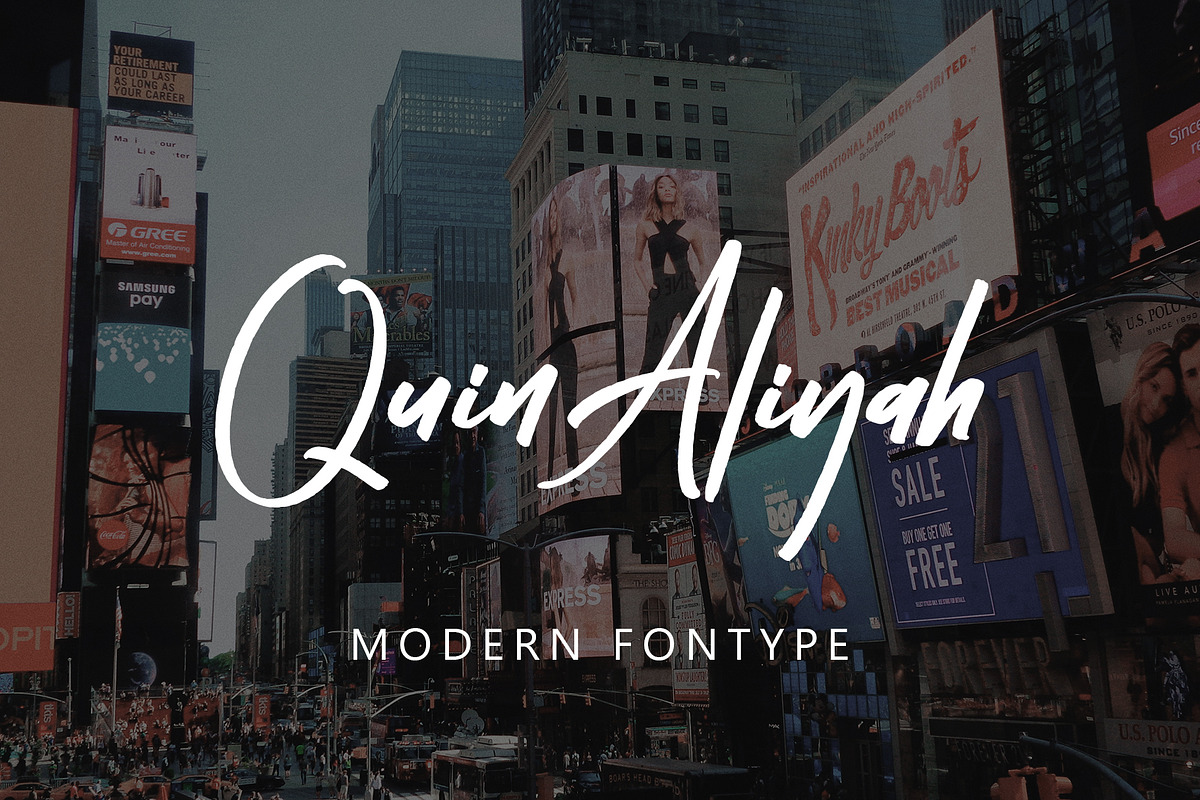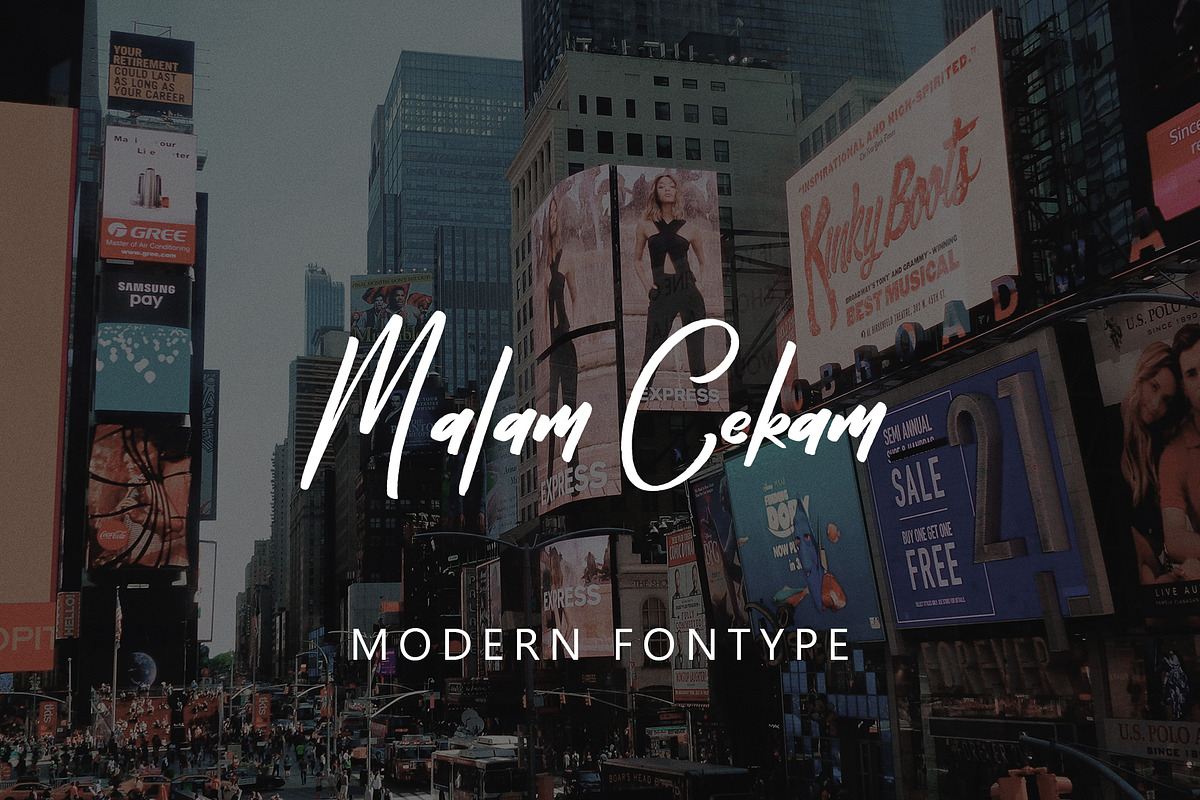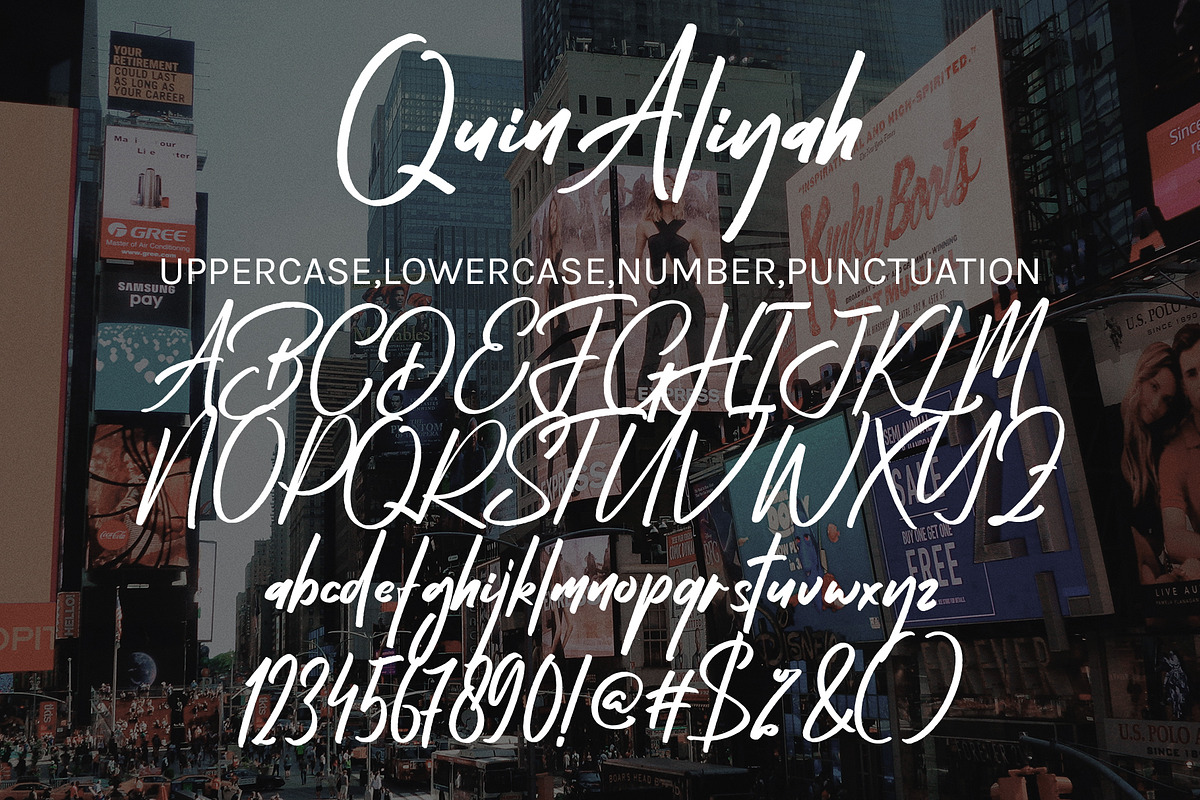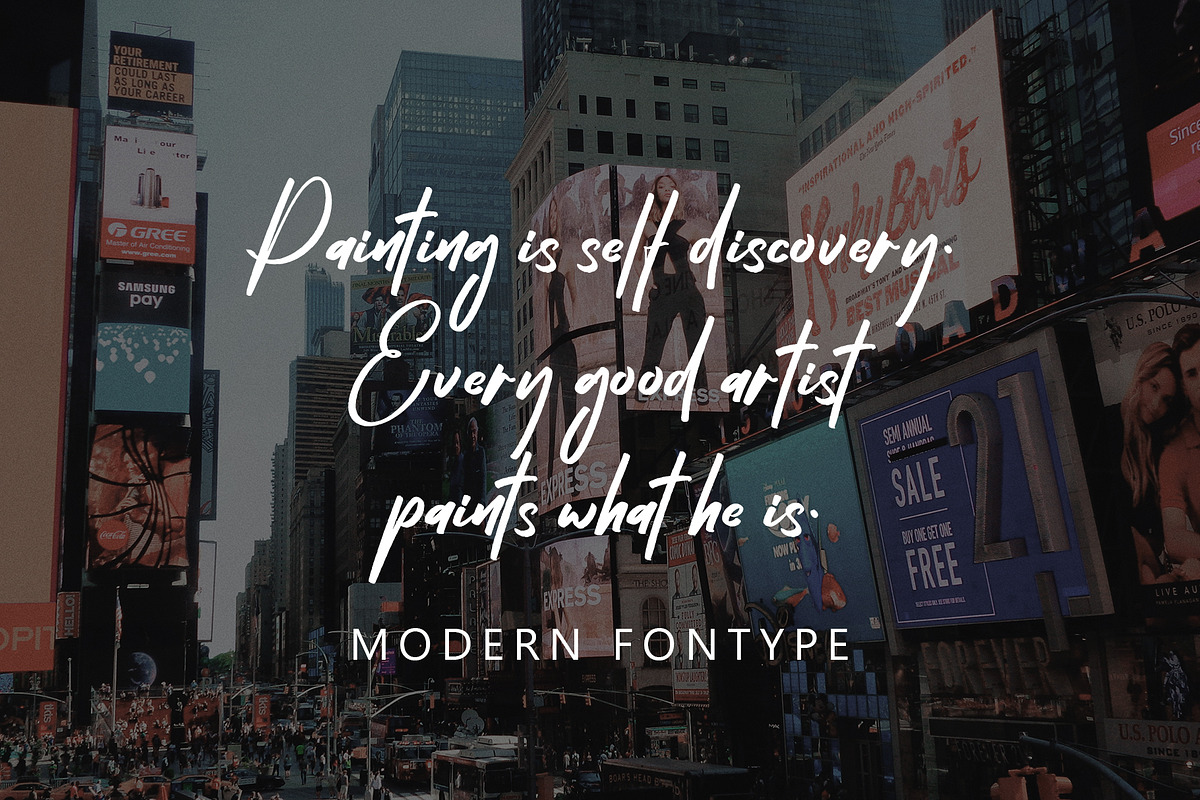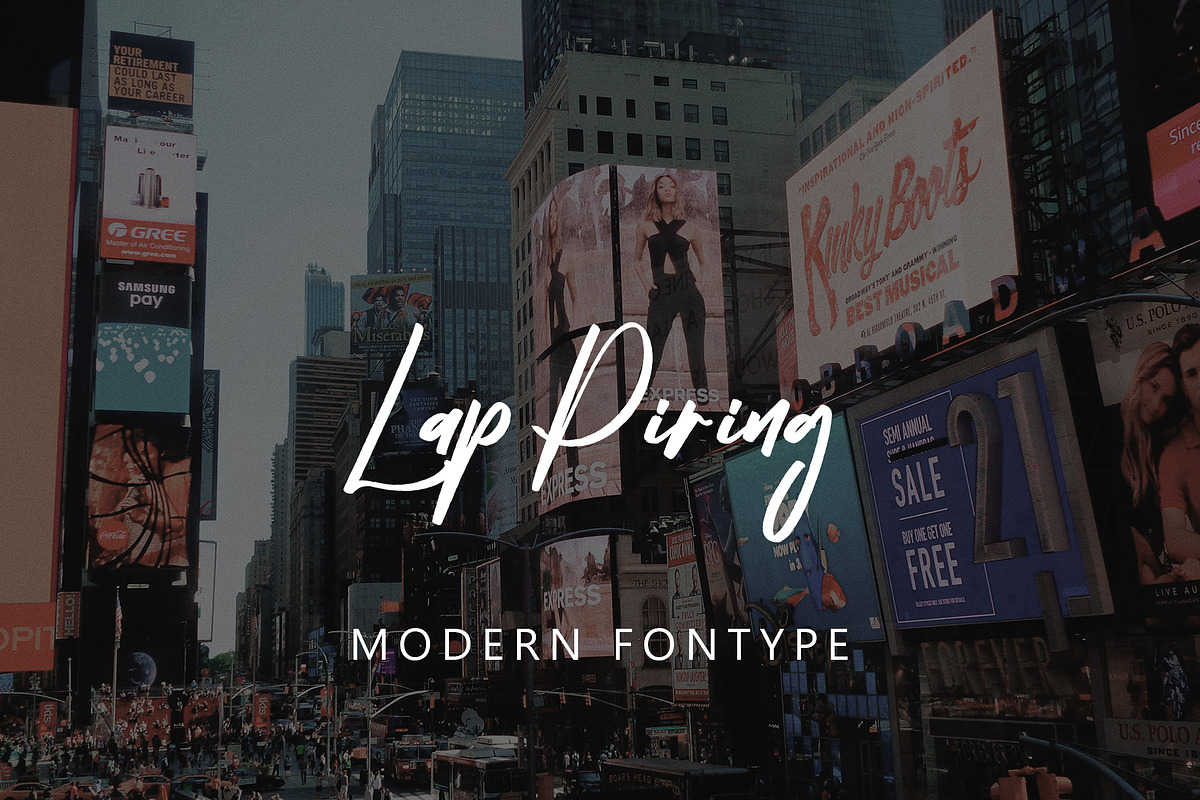
Quin Aliyah
Quin Aliyah with new style, this font will perfect for many different project ex: quotes, logo, blog header, poster, banding, letter, invitation, stationery, etc...